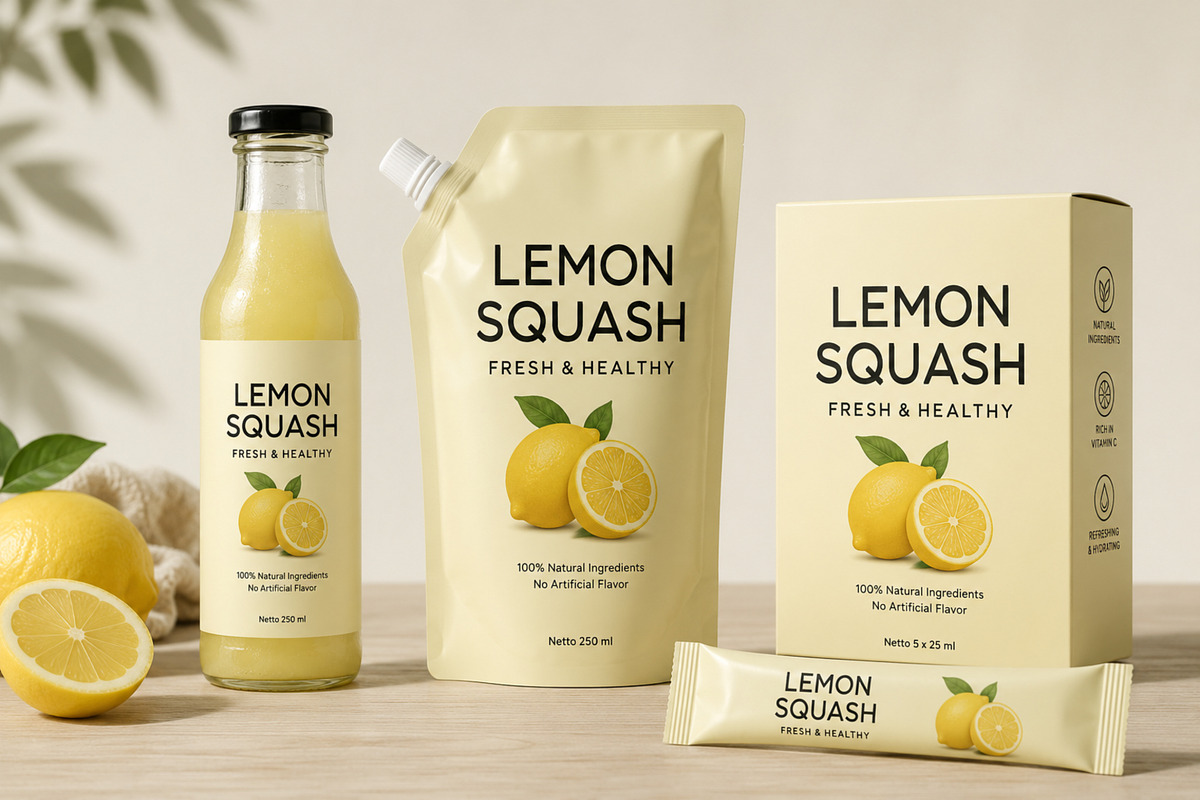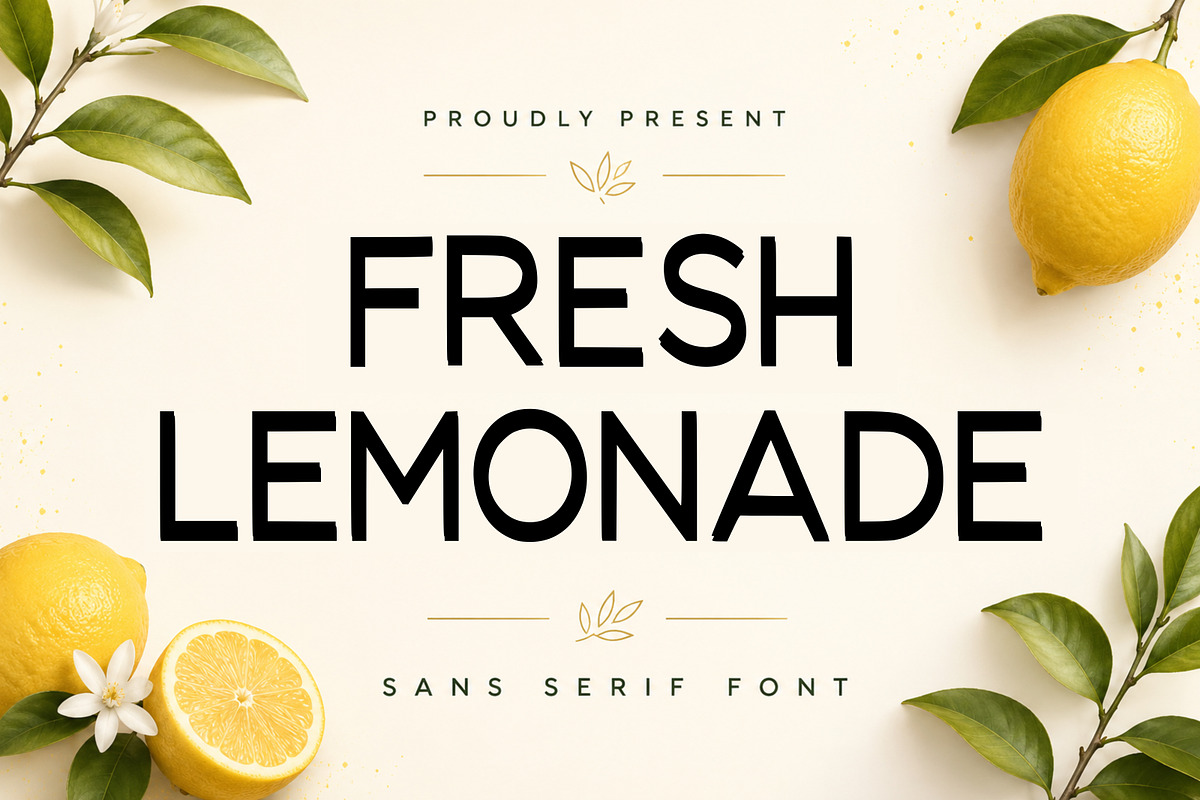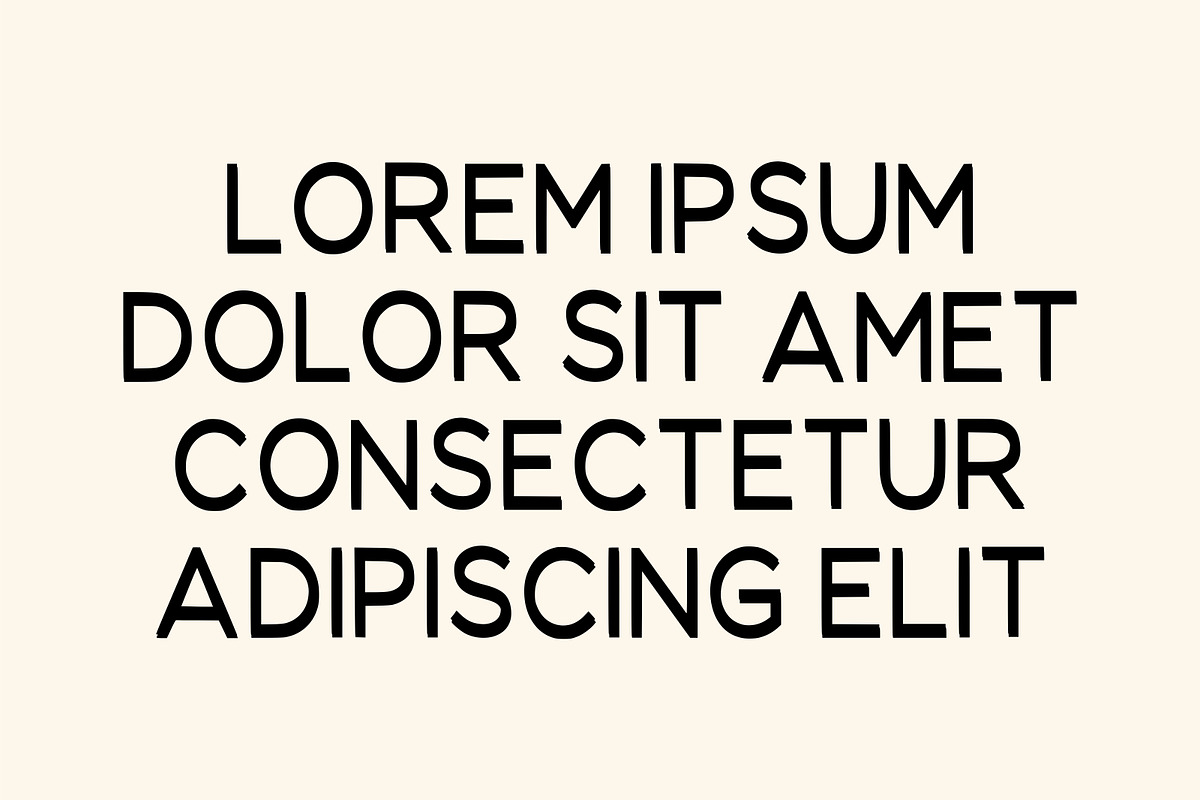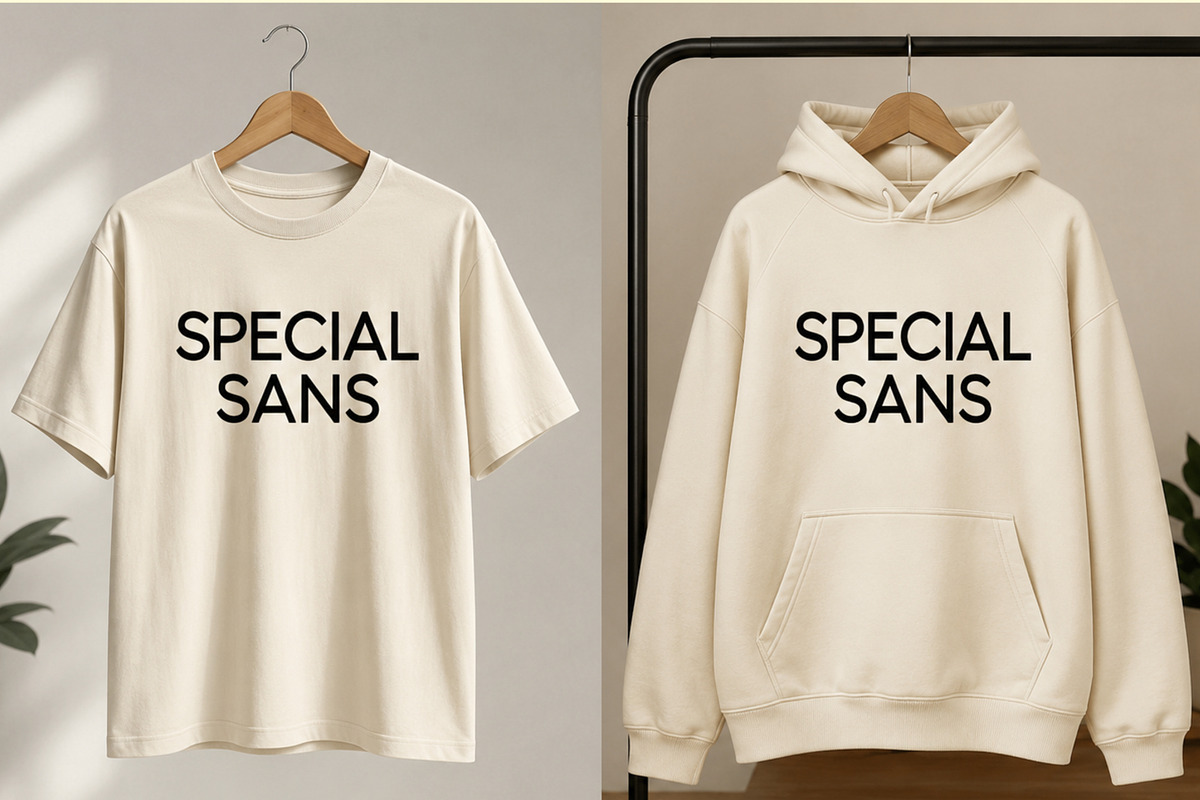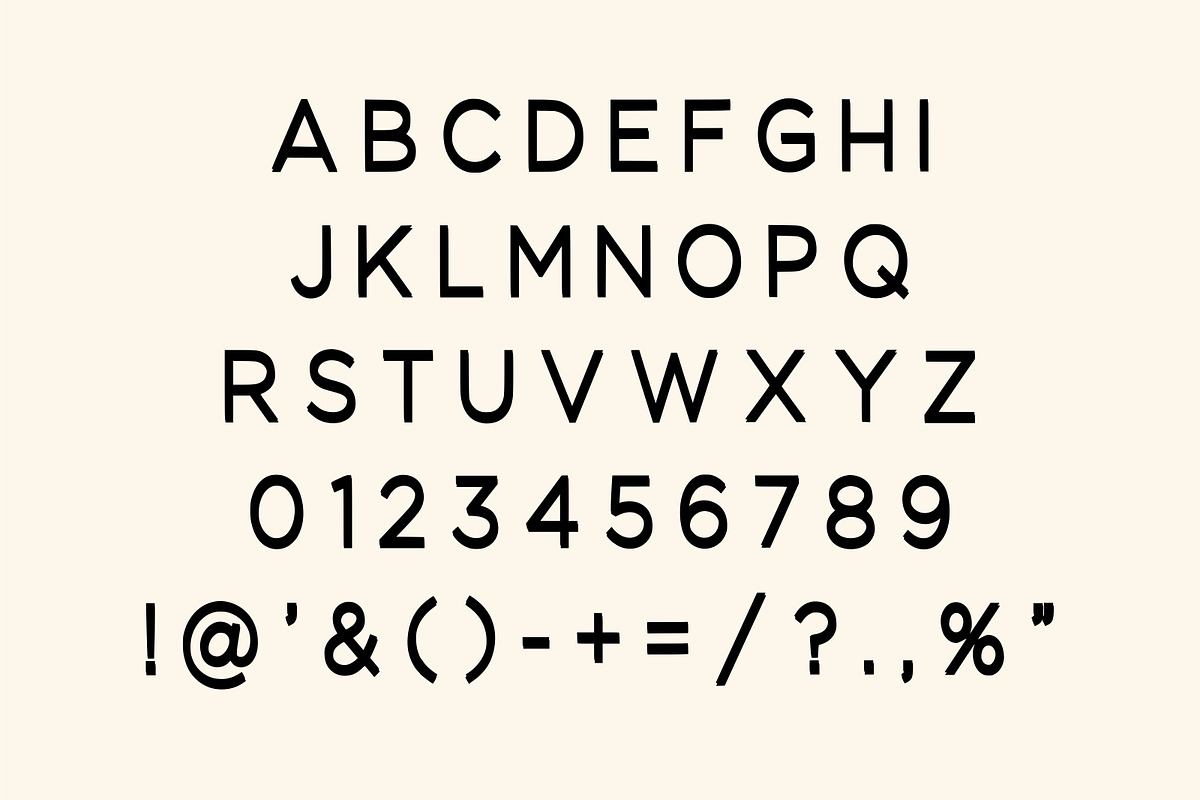
Fresh Lemonade
Meet Fresh Lemonade, a bold and versatile sans serif font designed to bring a clean, fresh, and sophisticated look to your creative projects. Its strong geometric structure and balanced proportions make it highly readable while maintaining a stylish modern character.
Inspired by fresh branding and contemporary typography, Fresh Lemonade works beautifully for food and beverage packaging, logos, labels, advertisements, posters, editorial designs, social media graphics, and more.
Perfect For: • Logo & branding • Food & beverage packaging • Lemonade & juice labels • Restaurant & café designs • Posters & advertisements • Product packaging • Editorial layouts • Social media graphics • T-shirt designs • Signage • Headlines & titles • Modern lifestyle branding
Style: Modern • Minimalist • Clean • Bold • Geometric • Sans Serif • Contemporary • Elegant • Versatile • Professional